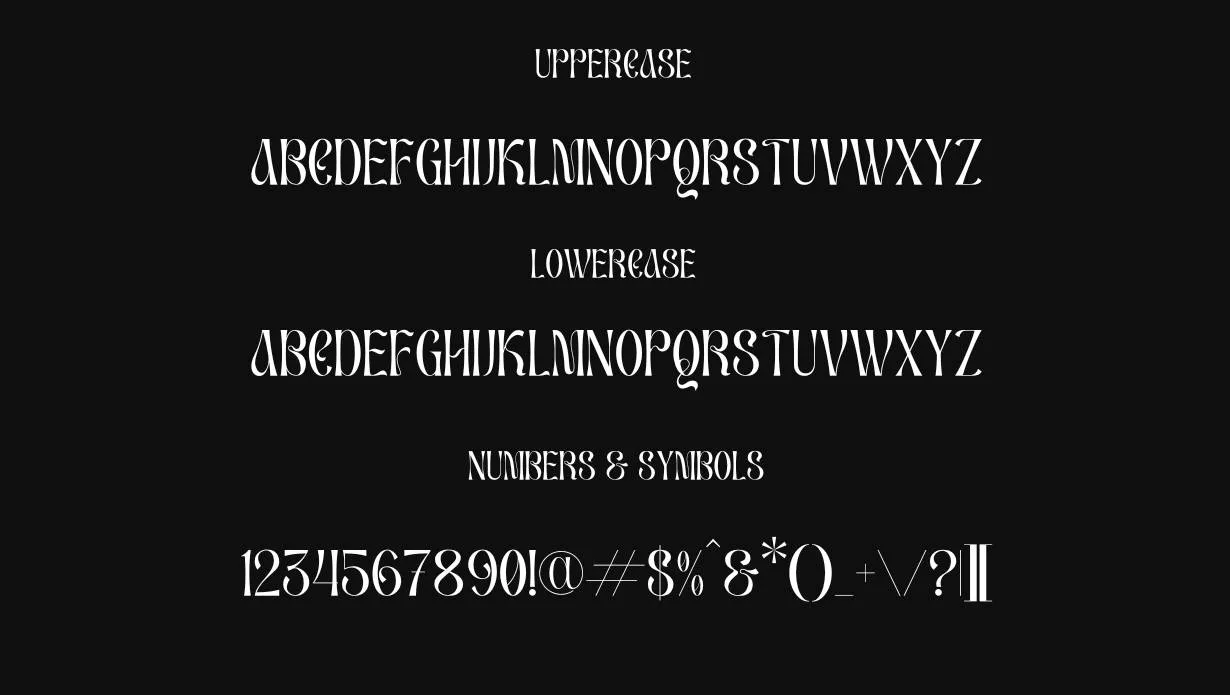
The Tupac Margrath font acts as a poetic narrator for your text. Its trendy and emotive style makes it ideal for crafting attention-grabbing music event flyers, designing impactful album covers, or infusing your branding with a sense of rhythm.
This font has a medium weight and standard width, ensuring that your words flow smoothly and rhythmically. Imagine using the Tupac Margrath font for a hip-hop festival flyer, turning your text into a visual beat that captures the essence of the music.